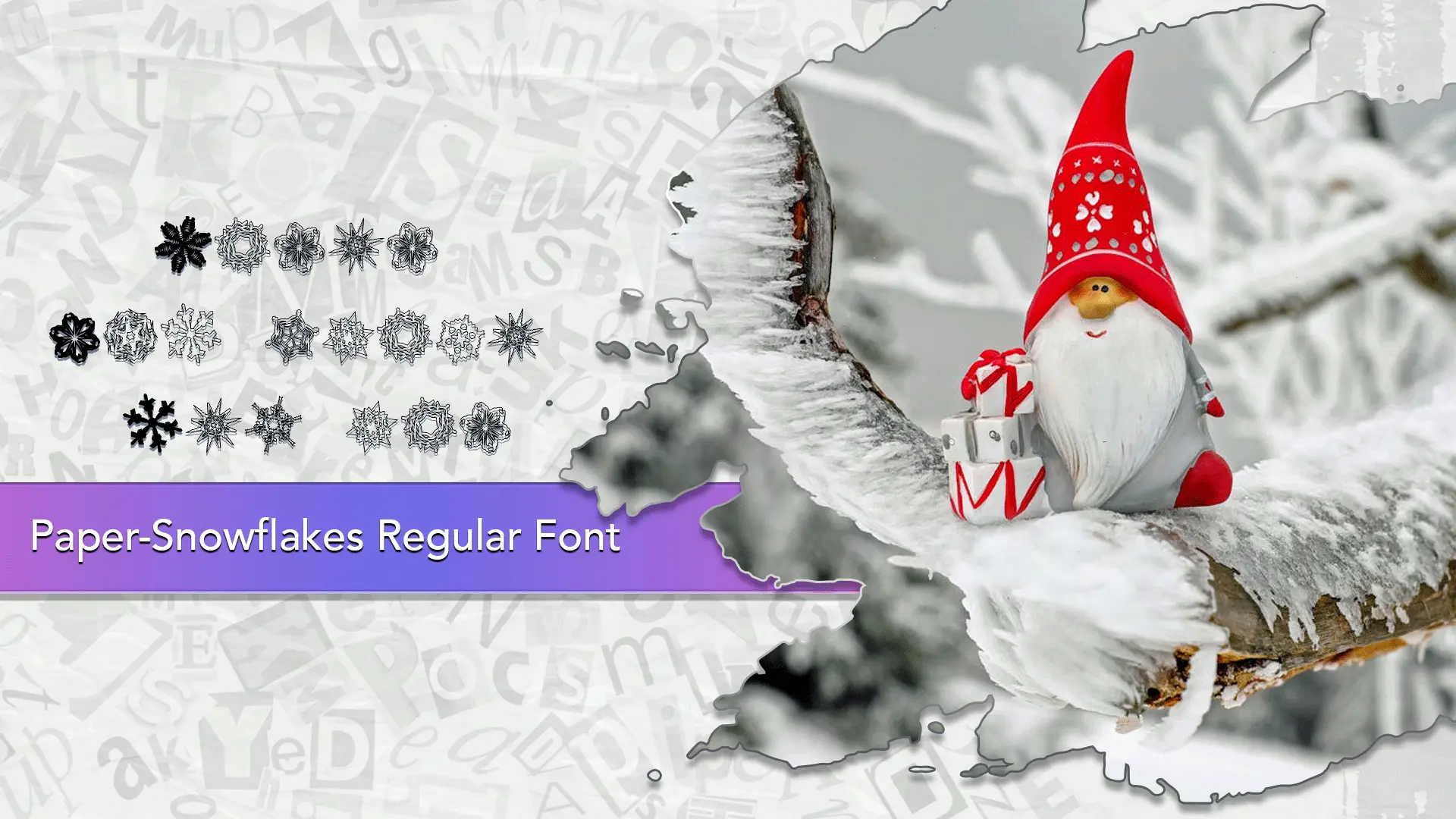
The Paper-Snowflakes font family may be ideal for you if you enjoy working on an artistic design project. The lively, expressive look of this typeface, which was created by Shara Weber, makes it ideal for Crafting and Cutting. Snowflakes Font is perfect for creating seasonal borders, dividers, and backgrounds for Christmas or winter-themed projects. It works beautifully for website banners, social media headers, printed party invitations, and seating cards. You can also use it to design festive newsletter borders or wintery backgrounds. Additionally, this font adds a charming winter accent to personalized items such as gift tags, holiday stationery, and photo overlays. and other light-hearted visual projects.
Regular are the one primary font styles of the Paper-Snowflakes font family. You may build dynamic, visually appealing text layouts with the distinct flair that each style offers. With crisp, readable lines and a relaxed tone.